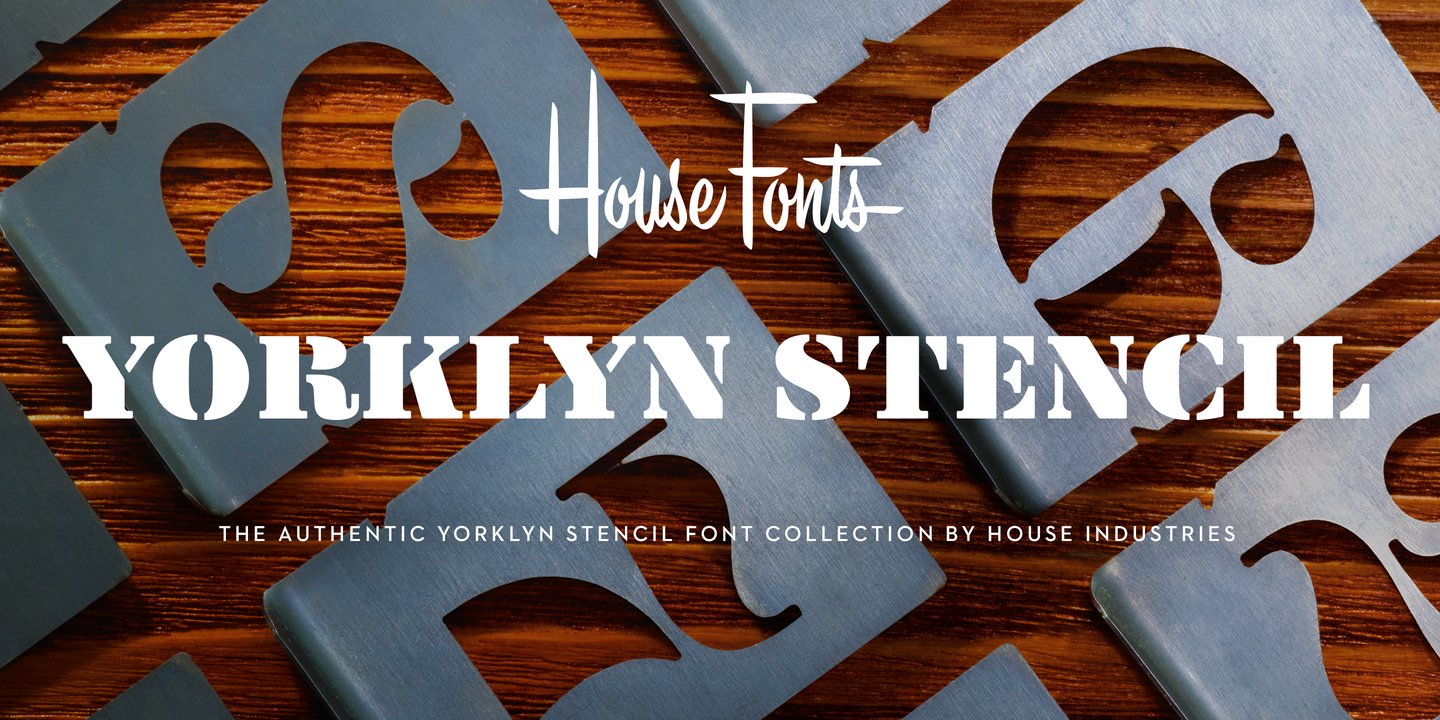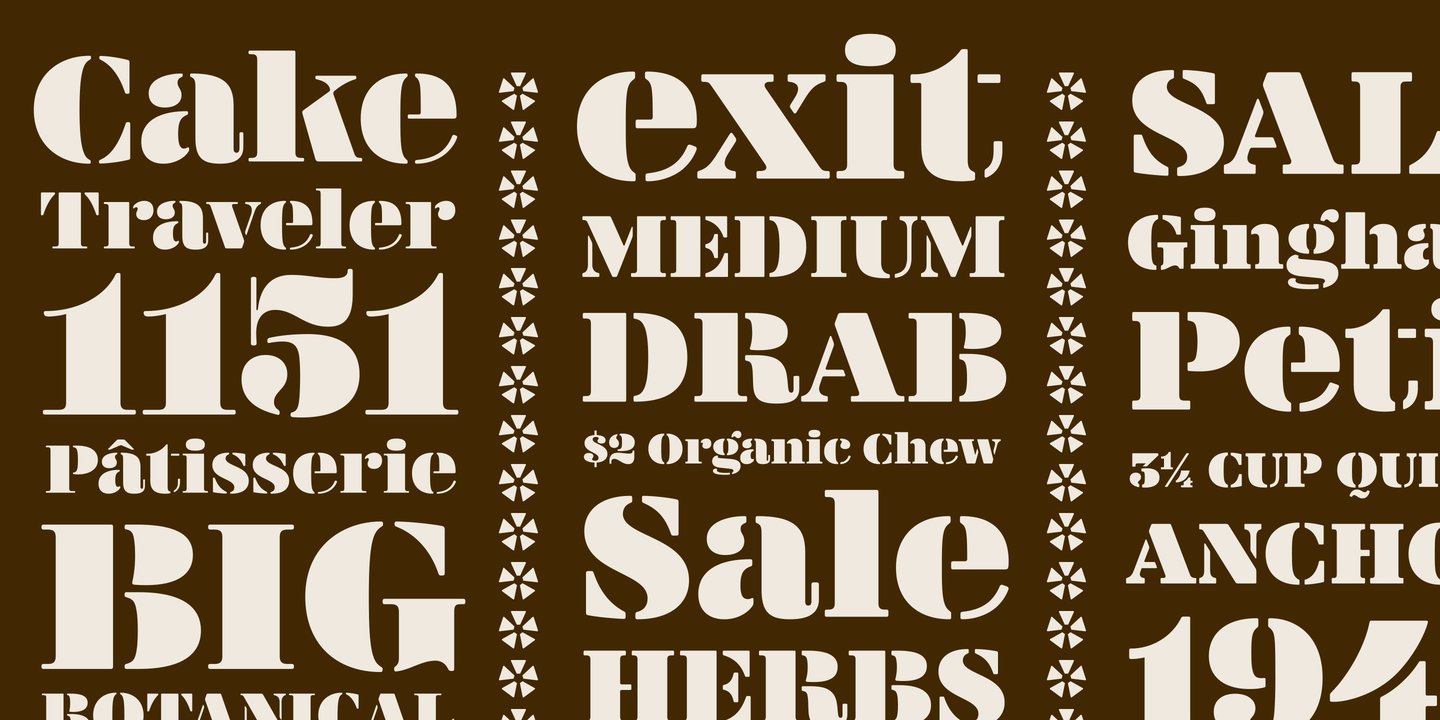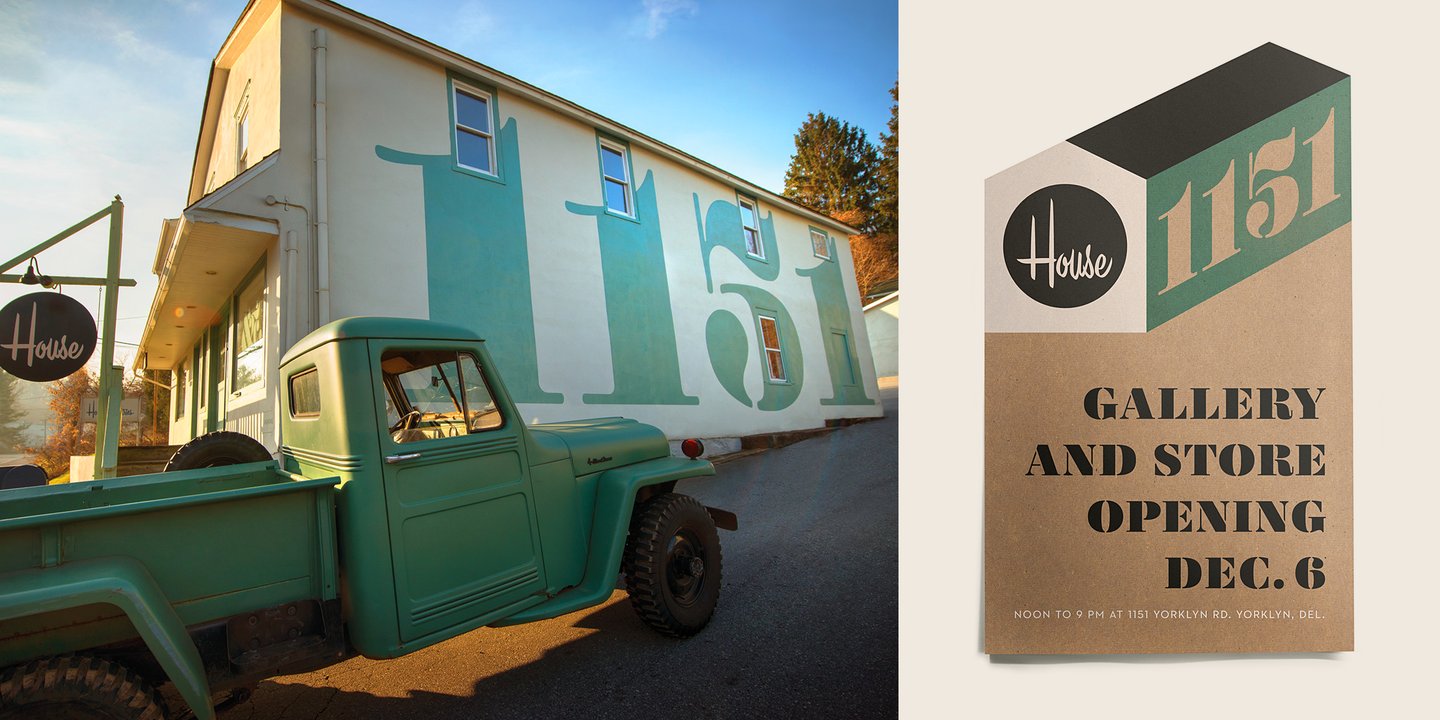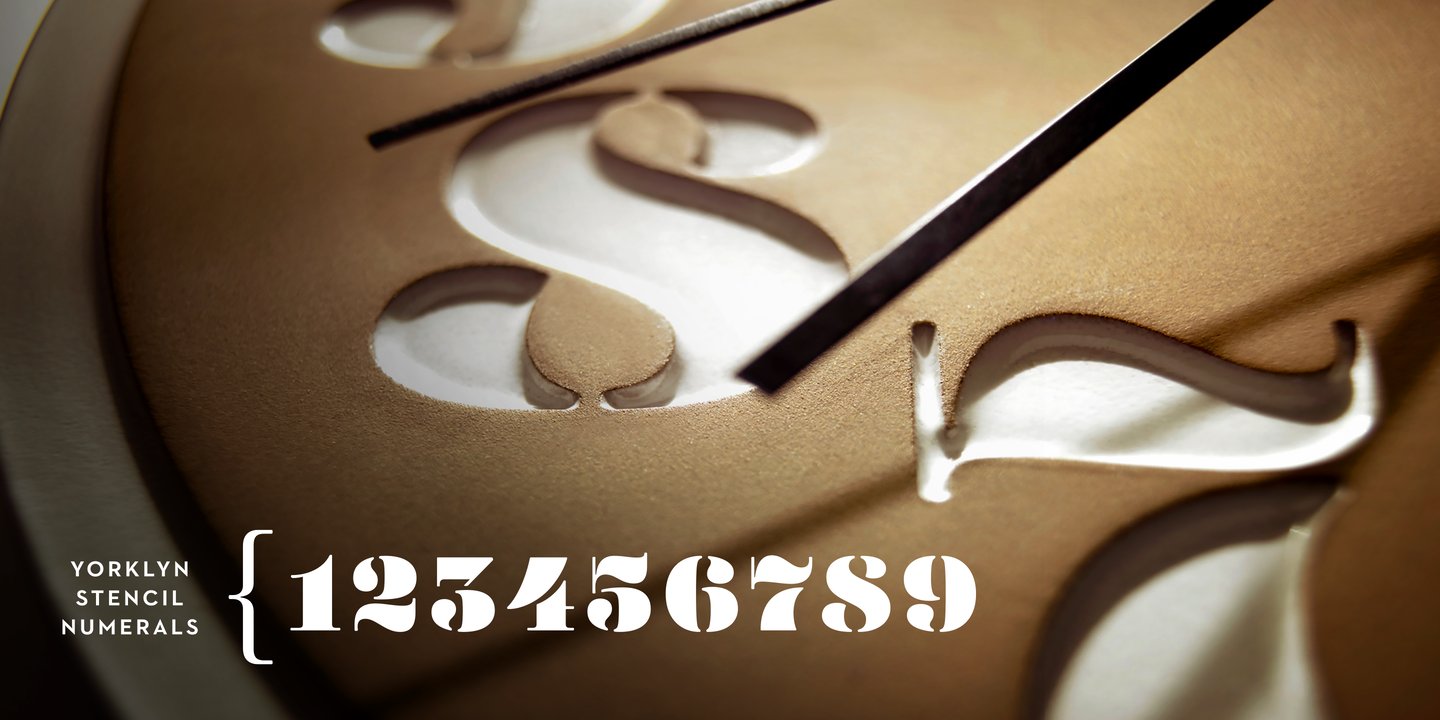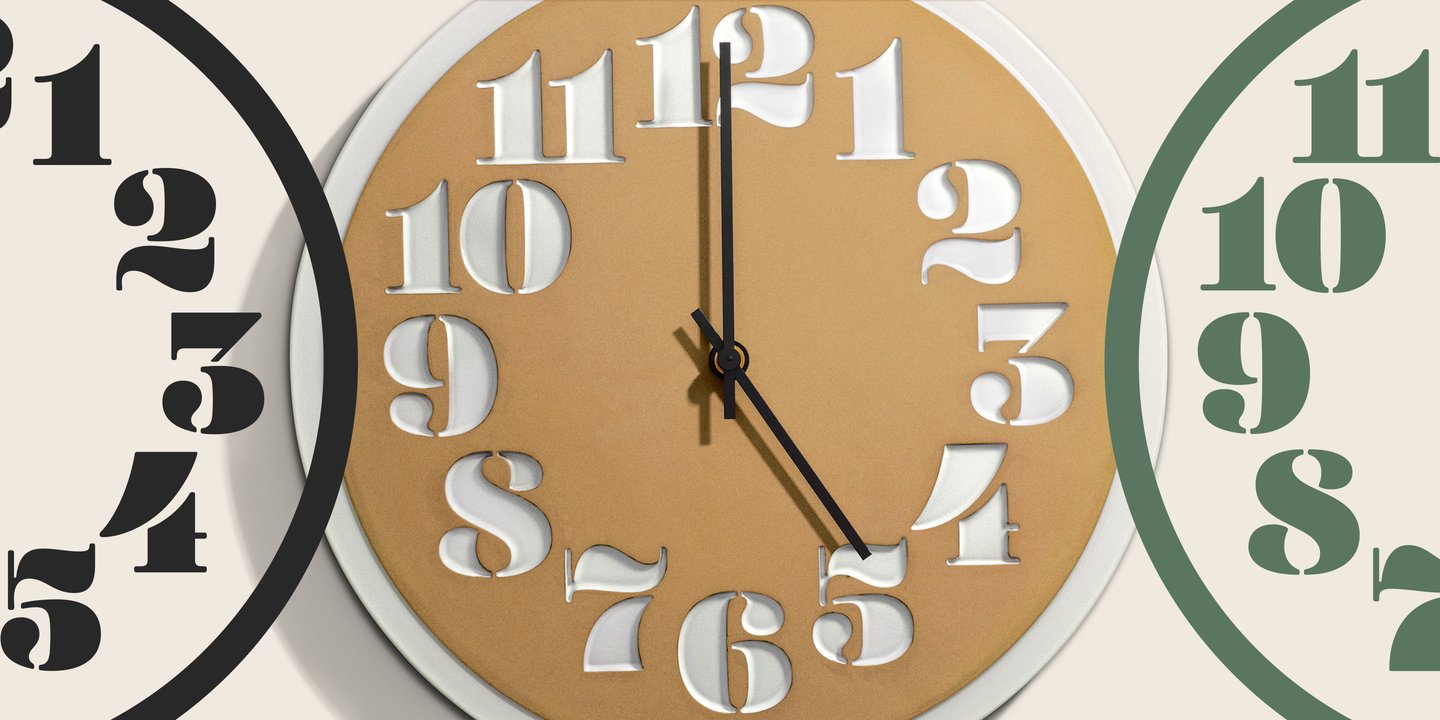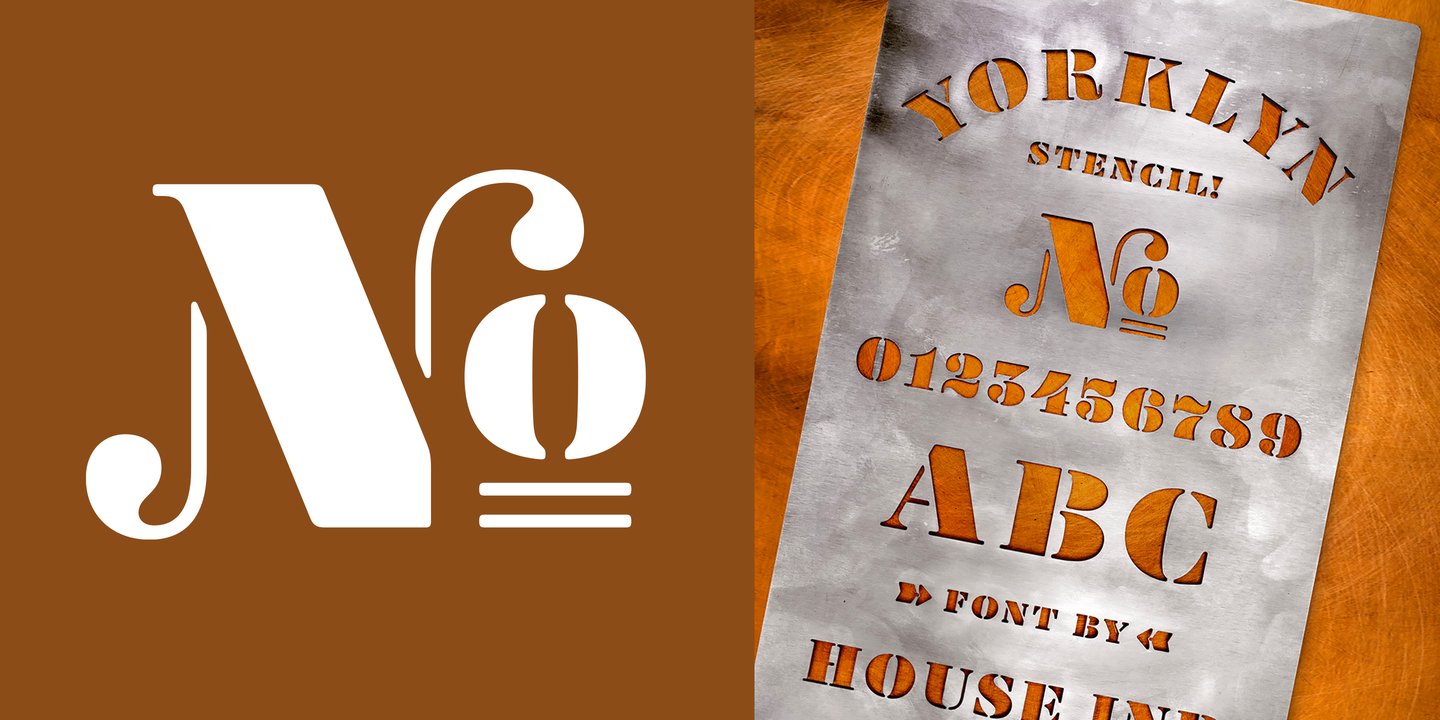
About the Yorklyn Stencil Font
About Yorklyn Stencil Font Family Yorklyn Stencil includes three fonts, each optimized for use at different size ranges. Grande has greater contrast and more delicate breaks designed to be used at larger sizes where finer details are more conspicuous. Medium and Petite are intended for smaller sizes where the breaks and contours must be more resilient. We embedded several OpenType layout features, including traditional fractions and nut fractions.
We extensively tested Yorklyn Stencil in what might be the broadest range of media and conditions in the annals of Northwestern Delaware typefounding history. From the ceramic kilns of Heath Ceramics to our studio’s stucco facade, Yorklyn Stencil’s robust curves and deceptively delicate breaks will withstand a wide variety of harsh conditions with unprecedented aplomb. Whether you’re hand cutting a stencil to buzz your bespoke restaurant bar stools or simply looking for a practical yet illustrative display font, Yorklyn Stencil’s elegant efficacy will enhance any creative composition. Like all good subversives, House Industries hides in plain sight while amplifying the look, feel and style of the world’s most interesting brands, products and people. Based in Delaware, visually influencing the world. Designers: Ken BarberPublisher: House IndustriesFoundry: House IndustriesDesign Owner: House IndustriesMyFonts debut: Sep 2, 2021 Yorklyn Stencil